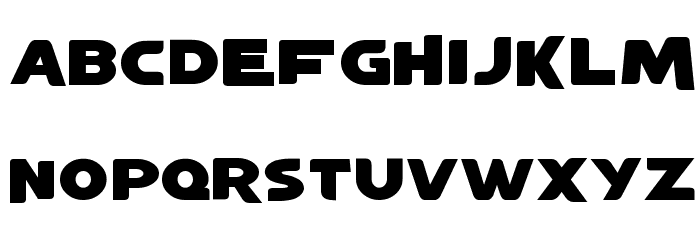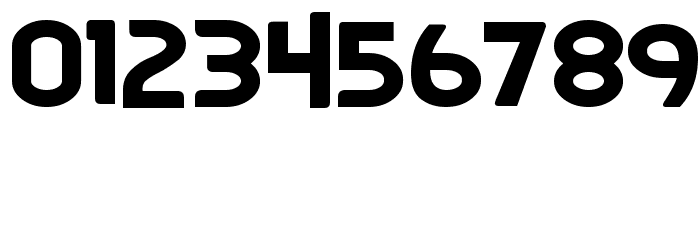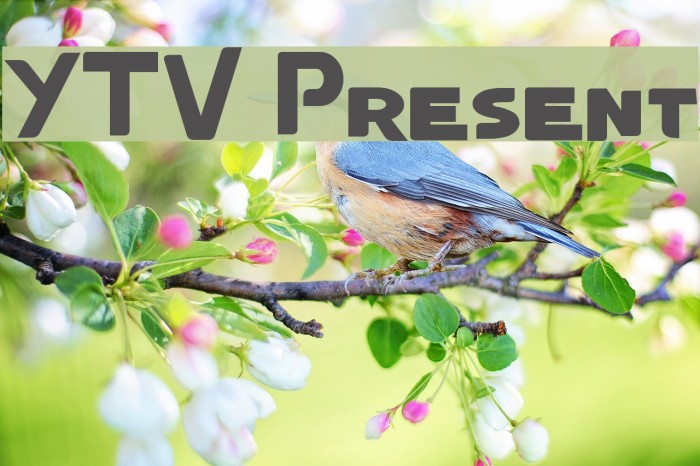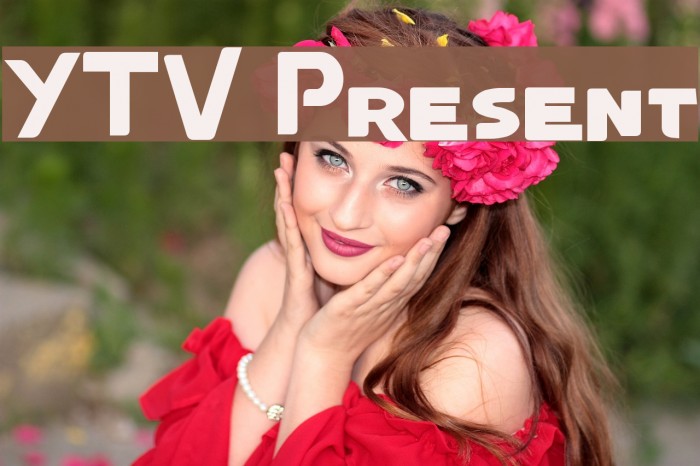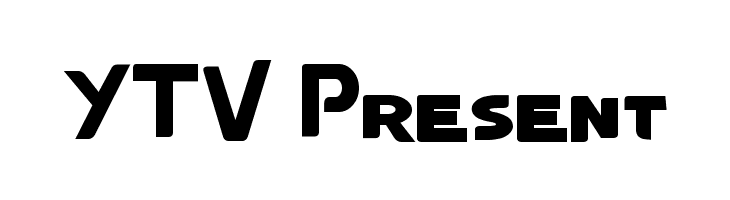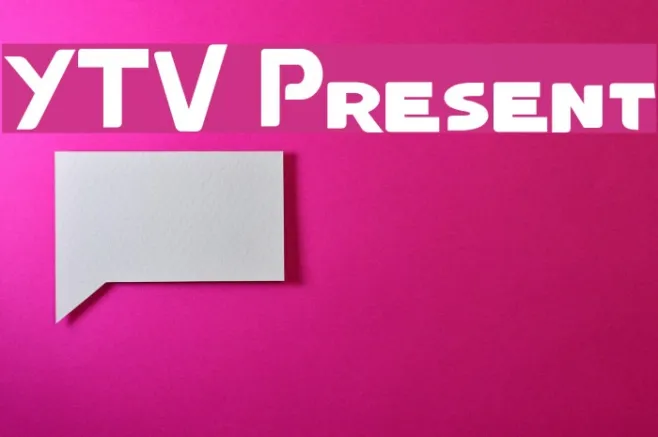
YTV Present Font
This font features bold, geometric letterforms with a modern and slightly futuristic aesthetic. The characters are constructed with clean lines and consistent stroke widths, giving it a strong and assertive presence. The uppercase letters are particularly striking, with a uniform height and width that contribute to a cohesive look. The numerals are equally bold, maintaining the geometric style with rounded edges that add a touch of softness to the overall design. This font is highly legible, making it suitable for various applications where clarity and impact are essential.
- Proposed Projects: Ideal for branding, advertising, headlines, and digital interfaces where a strong, modern look is desired.
- Category: Sans-Serif
- Use Case: Headlines, Logos, Branding